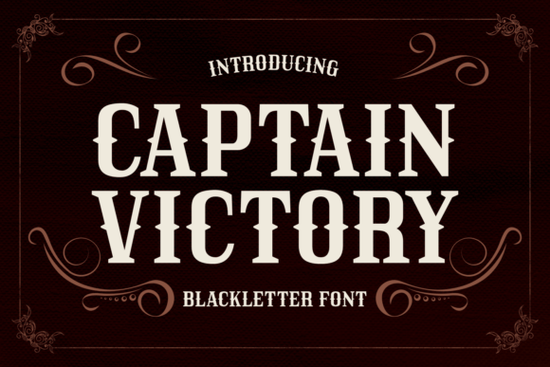
If you’re looking for a blackletter font with personality and old-world charm, Captain Victory might be just what your next project needs. It’s got that bold, gothic flair with a twist something that feels equally at home on a vintage sailor’s map or a Halloween party invite. The strokes are thick and confident, the curves deliberate, and the overall vibe leans into historical drama without feeling stuffy. Whether you’re designing merch, branding a small business, or just playing around with seasonal crafts, this font brings texture and storytelling to your work.
What kind of projects is Captain Victory good for?
This isn’t a font you’d slap on a modern tech startup logo but that’s the point. It shines when you want to evoke mood: think autumn markets, pirate-themed events, tattoo shop flyers, or even beer labels for craft breweries. Because of its nautical and Victorian undertones, it pairs especially well with:
- Fall festival posters
- Handmade soap or candle packaging
- T-shirt designs with a rugged, adventurous feel
- Wedding invites for couples going for a “gothic romance” or “steampunk” theme
If you’ve ever browsed our vintage Old English fonts, you’ll notice Captain Victory has a similar weight and structure, but with more movement in the letterforms. That makes it stand out when layered over textures like parchment, wood grain, or distressed backgrounds.
How does it compare to other blackletter styles?
Blackletter fonts can sometimes feel stiff or overly formal. Captain Victory avoids that by keeping just enough irregularity in its lines to feel hand-crafted. For example, if you’re also considering something like our California-style blackletters, which lean surf-and-sun, Captain Victory is its moody, foggy cousin from the North Sea. Or if you’re working on something edgy for a tattoo parlor, you might cross-reference it with our tattoo studio collection some of those fonts have sharper angles, while Captain Victory holds more curve and flow.
It’s also worth noting that not all blackletter fonts play nice with lowercase letters or long paragraphs. Captain Victory? It handles both decently. You wouldn’t set a novel in it, but for headlines, logos, or short quotes, it’s surprisingly readable even at smaller sizes.
Pair it wisely. This font doesn’t need flashy companions. Try pairing it with a clean sans-serif (like Montserrat or Lato) to let it breathe. Avoid using another script or decorative font alongside it that’ll just muddy the message.
Watch your kerning. Some of the wider glyphs (like “W” or “M”) can eat up space. If you’re laying out tight designs, manually adjust letter spacing so things don’t look crowded.
Test print legibility. Especially if you’re using it for physical products stickers, mugs, tote bags print a sample first. Dark ink on light fabric? Perfect. Light thread on dark fabric? Might need to simplify or outline the letters for clarity.
Why does this font feel so “autumn-ready”?
There’s something about the weight and shadow in Captain Victory that mirrors the mood of early fall the crisp air, the turning leaves, the hint of mystery as daylight fades sooner. Designers often reach for warmer tones and textured fonts during this season, and this one slots right in. Imagine it stamped on a pumpkin spice label, carved into a wooden sign for a harvest fair, or glowing on a lantern-lit event poster. It doesn’t scream “Halloween,” but it definitely whispers “something’s coming.”
And if you’re building seasonal collections for print-on-demand stores, having a font like this in your toolkit means you can create cohesive themes across multiple products without repeating the same aesthetic everyone else is using. Pair it with illustrations of ships, compasses, antique keys, or vintage botanicals, and you’ve got a whole vibe not just a font.
Where can I see more like this?
If you’re digging the style but want to explore variations, check out our full blackletter category. You’ll find fonts with sharper edges, more ornate swirls, or even ones that mimic medieval manuscripts. Each has its own flavor, but they all share that timeless, handcrafted energy that modern minimalism sometimes lacks.
And if you’re still unsure whether Captain Victory fits your brand or project, try mocking up two versions: one with this font, and one with something completely different (maybe a rounded sans or a delicate script). Sometimes seeing the contrast helps you realize what emotional tone you actually want to hit.
Fonts like this aren’t just tools they’re tone-setters. Choose wisely, and let the letterforms do some of the storytelling for you.